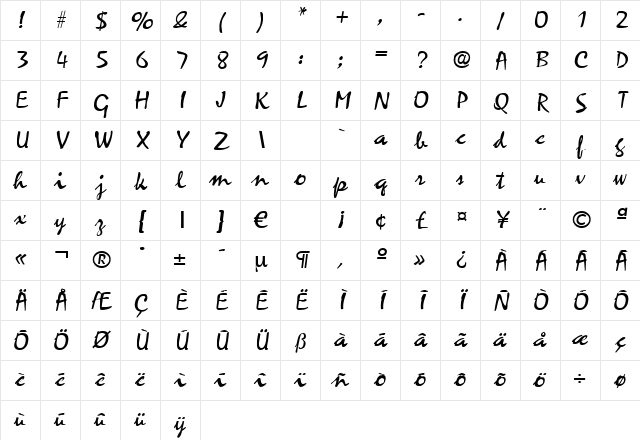
Zephyr Regular Free Font
Zephyr Regular
Design Context for Zephyr
Zephyr is a composed and adaptable typeface that performs quietly and consistently across a wide range of design contexts.